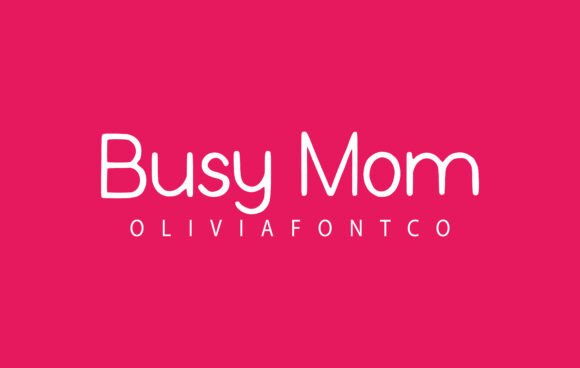
The Busy Mom Font: A Romantic Handwritten Delight for Creative Projects
As a designer, I’ve had my fair share of moments where I’ve struggled to find the perfect font for a project. I recall working on a wedding invitation design for a client who wanted something that exuded warmth, love, and a touch of elegance. After scouring through countless font libraries, I stumbled upon the Busy Mom font, and it instantly became my go-to choice. In this article, I’ll share my experience with this beautiful font, its features, and how you can make the most of it in your creative projects.
A Personal Favorite: What I Love About Busy Mom Font
The Busy Mom font has quickly become a favorite in my design arsenal, and here’s why:
• ✨ Authentic Handwritten Feel: The font boasts a genuine handwritten look with a romantic touch, making it perfect for projects that require a personal and emotional connection.
• ✅ Legibility: Despite its handwritten nature, the font is remarkably legible, making it suitable for both title and body text.
• 💕 Versatility: From magazine headlines to social media graphics, branding, wedding invitations, and cards, this font can elevate a wide range of design projects.
No font is perfect, and Busy Mom is no exception. Here are a few quirks to keep in mind:
• 🤔 Limited Formality: Given its handwritten nature, this font might not be the best fit for projects requiring a high level of formality or professionalism.
• ⚠️ Glyph Limitations: While the font comes with a range of glyphs and OpenType features, it might not have every special character or symbol you need.
3. Experiment with OpenType features like ligatures and stylistic alternates to add more flair to your text.
The Story Behind Busy Mom Font
The Busy Mom font was designed with love and care by a talented type designer who wanted to create a font that captured the essence of everyday handwritten notes. Inspired by the messy, yet charming handwriting of busy moms, this font is a testament to the beauty of imperfection.
Is Busy Mom font suitable for body text? While it’s primarily designed for headlines and titles, Busy Mom is legible enough to be used for body text in certain projects, especially those with a personal or creative tone.
Does Busy Mom support OpenType features? Yes, Busy Mom font comes with a range of OpenType features, including ligatures and stylistic alternates, which can enhance your design.